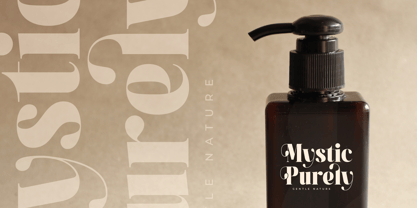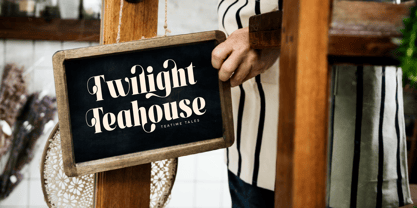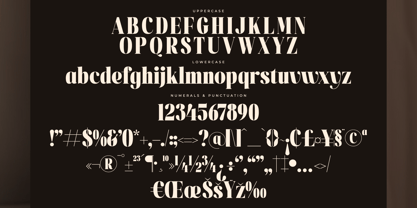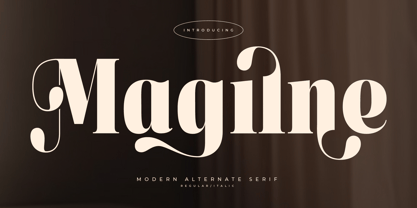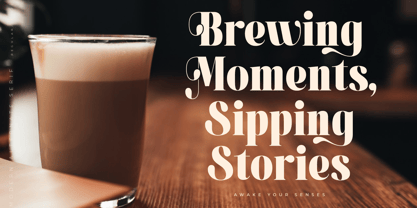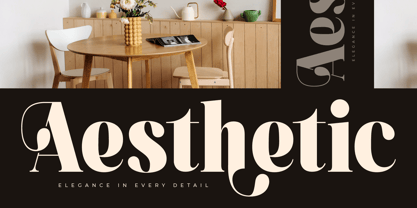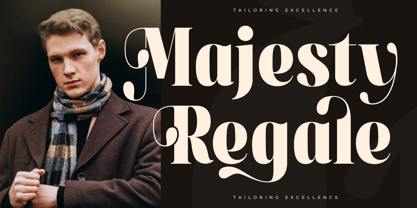
Magilne
by Letterena Studios
The Magilne Font Family was designed by Heru Utama Putra and published by Letterena Studios. Magilne contains 2 styles and family package options.
Magilne is a modern and stylish serif font that combines sophistication with contemporary flair. Its clean lines and balanced proportions make it perfect for editorial designs, branding, and logos. With its versatility and timeless appeal, Magilne elevates any project with elegance and professionalism.